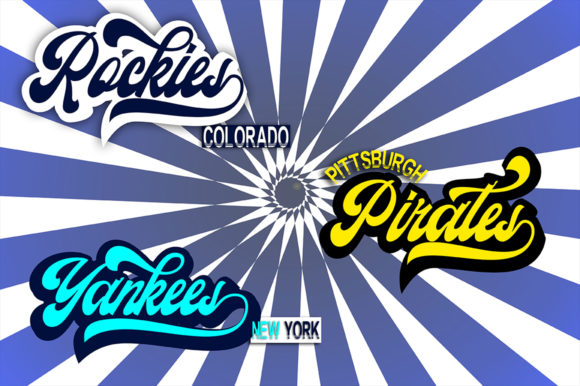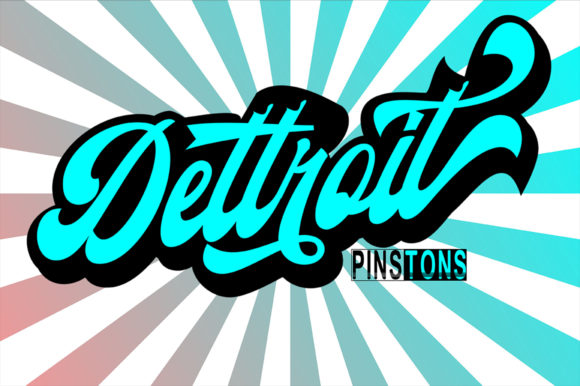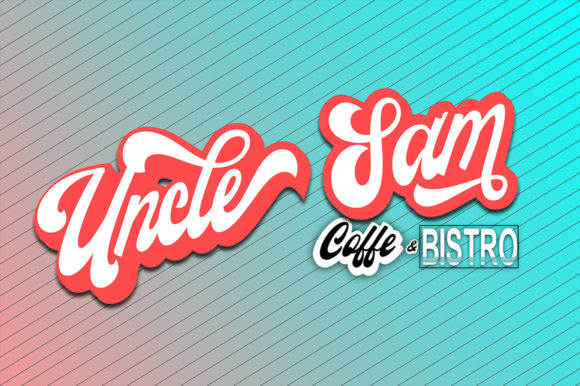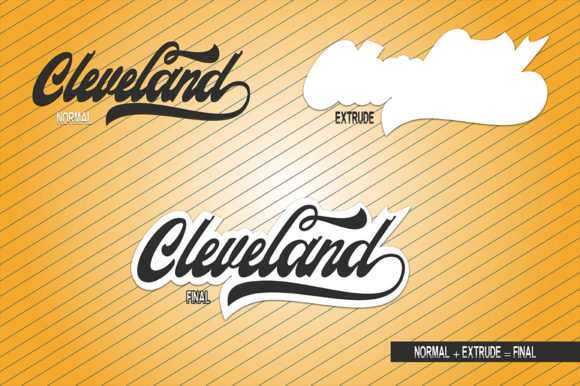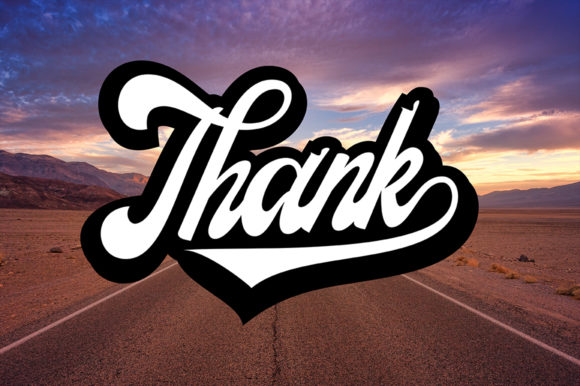
HomeScript FontsHarley Queen Font Script Fonts Harley Queen Font FacebookXPinterestWhatsApp Harley Queen Font Poster 2 Harley Queen Font Poster 3 Harley Queen Font Poster 4 Harley Queen Font Poster 5 Harley Queen Font Poster 6 About Harley Queen Font Harley Queen is an inspiring vintage script with bold characters. Fall in love with its playful swashes! DOWNLOAD ON CREATIVE FABRICAThis font is sold and delivered by Creative Fabrica. Font Canyon may earn a commission if you buy through this link. People also explored Pure Love Font BD Algebra Kemped Font Janelotus Font Penelope Font Allissona Font Bastomi Font Callmounth Font Peinbolf Font 299 0 TagsHarley Queen Font Previous articleAnggada FontNext articleVanilla Latte Font LEAVE A REPLY Cancel reply Comment: Please enter your comment! Name:* Please enter your name here Email:* You have entered an incorrect email address! Please enter your email address here Website: Save my name, email, and website in this browser for the next time I comment. Personal Use Free Velasco Personal Use Free Read more about this font Saolice Personal Use Free Read more about this font Bintang Noela Personal Use Free Read more about this font Bestlife Personal Use Free Read more about this font BLOG Modern Sans-Serif Fonts That Brands Love in 2025 In 2025, modern sans-serif fonts remain a top choice for brands looking to project clarity, professionalism, and... Top 7 Google Fonts Alternatives for Faster and Privacy-Friendly Web Design (2025) Top 10 Handwritten Fonts That Elevate Your Designs Where to Buy American Fonts Online in 2024